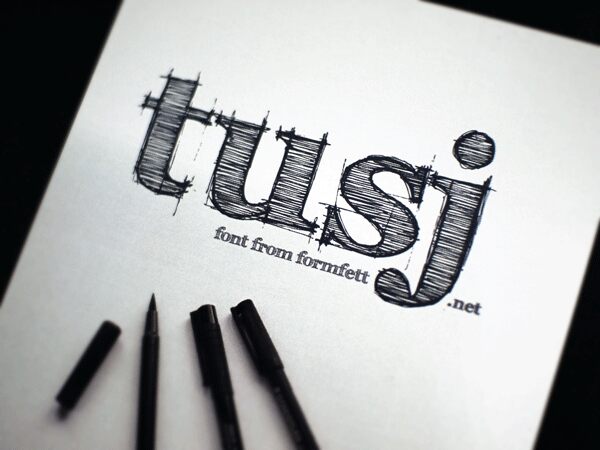
FFF Tusj Bold by Magnus Cederholm of Formfett is a free sketched serif display font built from imposing classical letterforms. Its broad serifs and strong thick-thin contrast are overlaid with dense pen hatching, stray guide marks, and scratchy edges that make each letter resemble an unfinished engraver's study.
Posters are its clearest setting, since the oversized construction lines turn a title into part of the artwork. Book covers and album artwork also suit its etched texture. Packaging for craft goods can use the same rough finish, especially when aimed at customers drawn to printmaking, old technical sketches, or workshop ephemera.